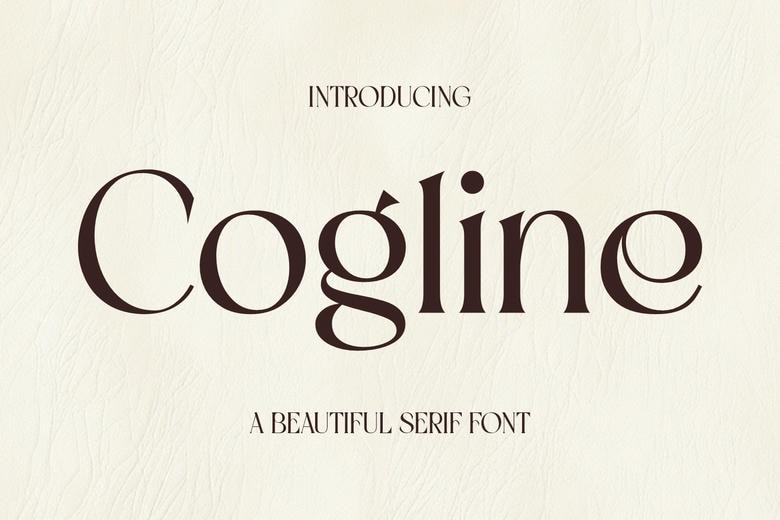
Cogline Font
Cogline is an elegant serif font that blends classic sophistication with modern refinement. Its graceful curves and sharp serifs make it perfect for branding, invitations, and editorial design. Cogline’s timeless style and exceptional readability add a touch of luxury and elegance to any project.
Cogline Serif Font